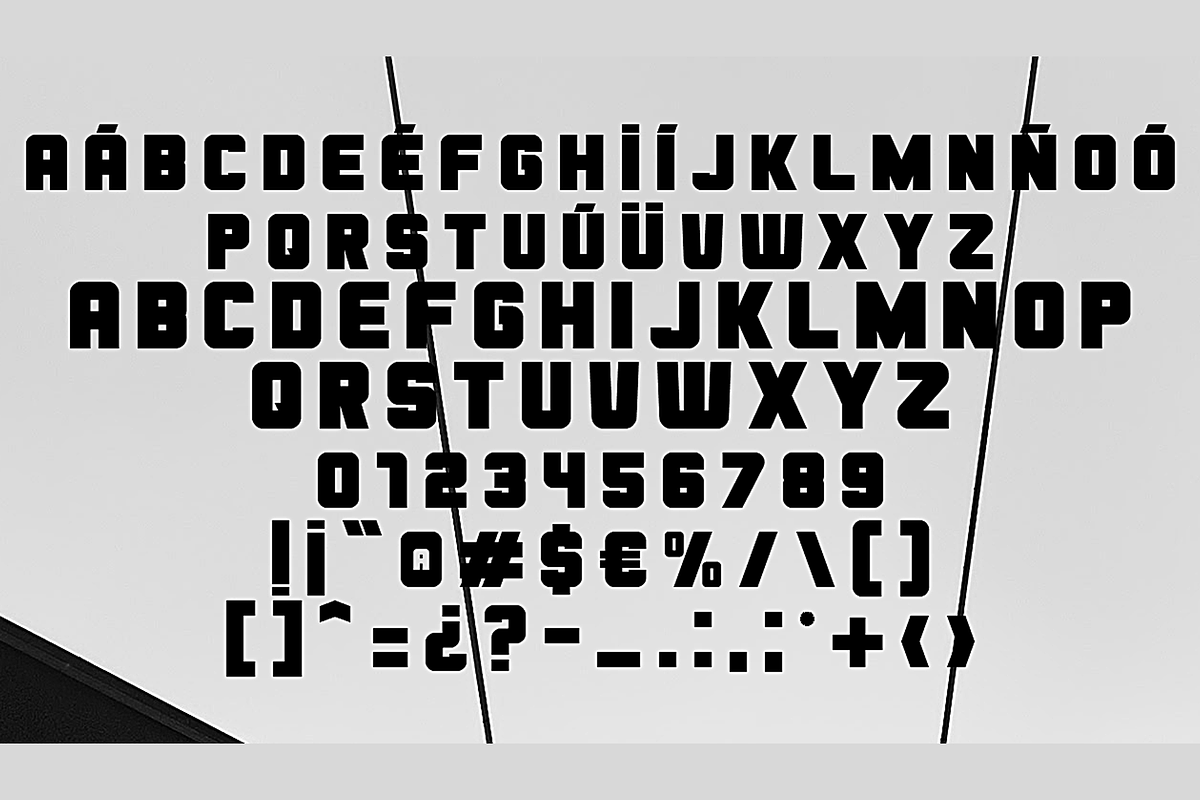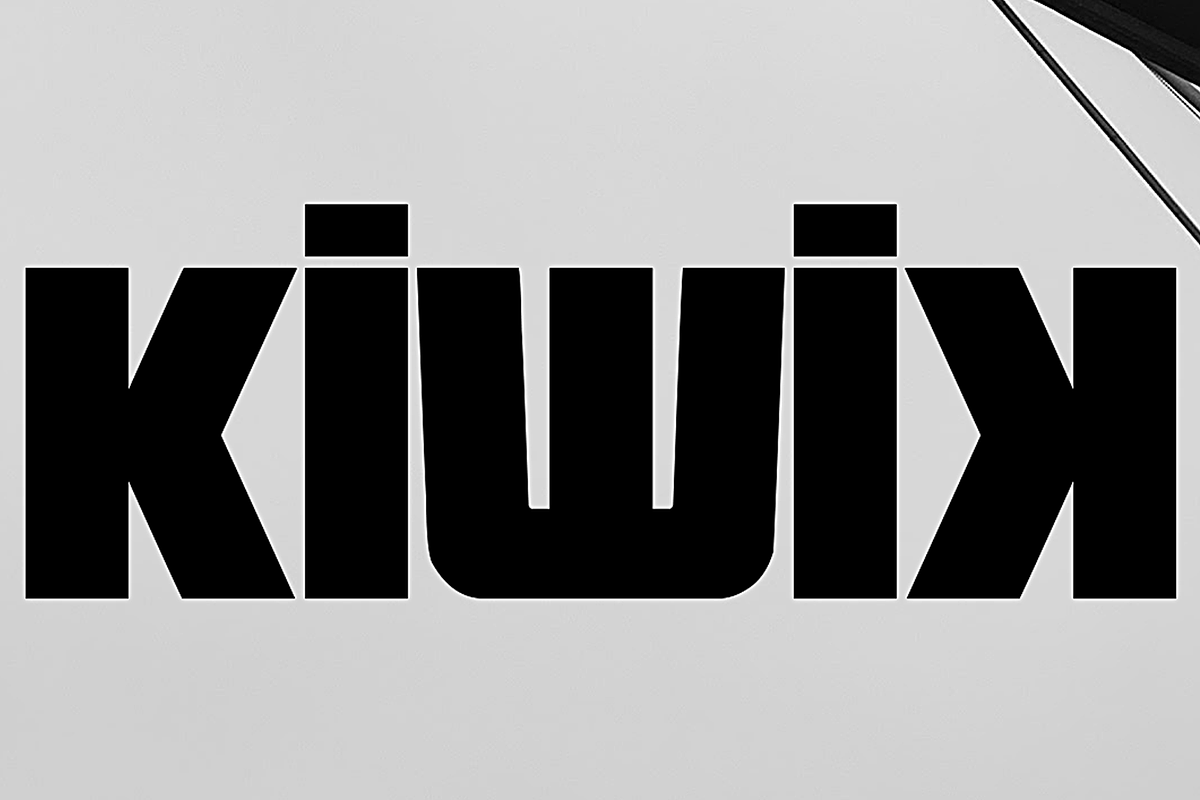
Kiwik
Kiwik by Qbotype Fonts is a font selected for branding, posters, packaging, typography.
- Kiwik Typeface This typeface contains 97 characters, including uppercase, lowercase, numbers and symbols.
Kiwik by Qbotype Fonts fits naturally into Branding, posters, packaging, typography.